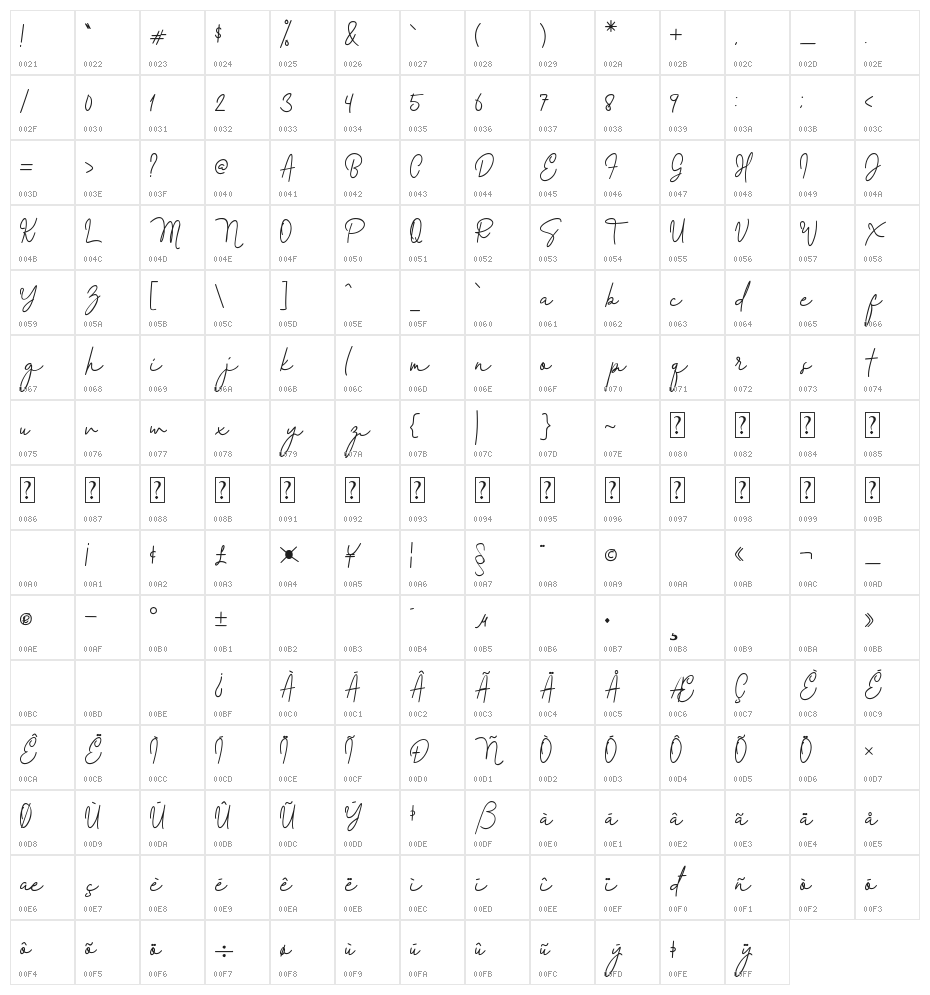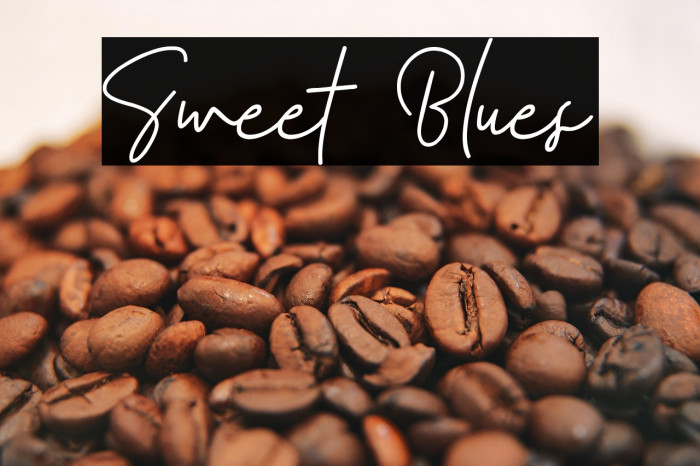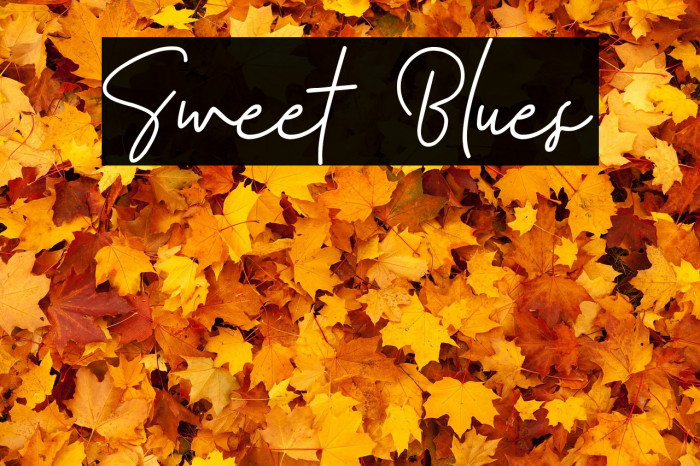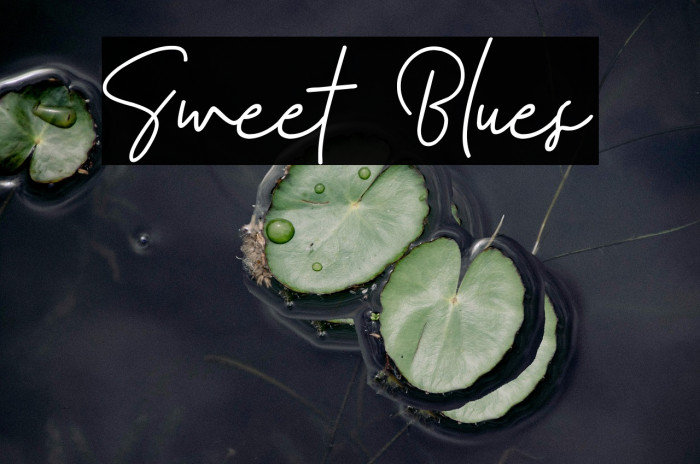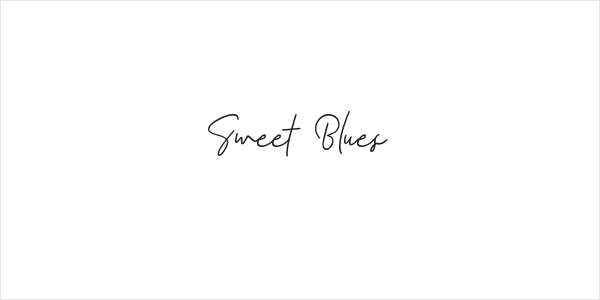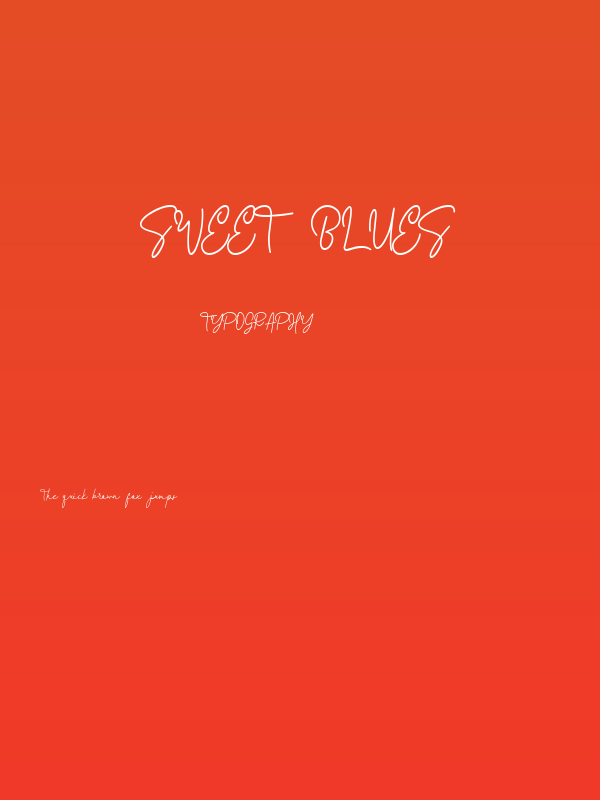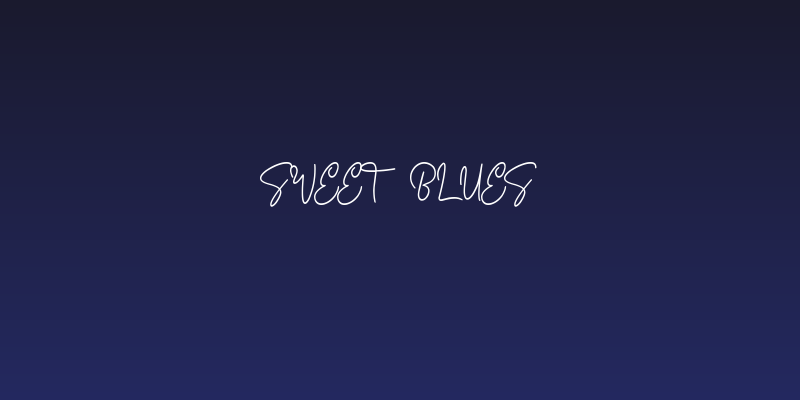
Sweet Blues Font
Sweet Blues Description
This font features a flowing, cursive style with elegant loops and smooth transitions between letters. The uppercase characters are tall and graceful, with a slight slant that adds a sense of movement. Lowercase letters maintain a consistent style, with elongated ascenders and descenders that enhance the font's fluidity. The numerals are designed to match the cursive theme, offering a cohesive look across all characters. Special characters are integrated seamlessly, maintaining the overall aesthetic. This font is perfect for projects that require a personal, handwritten touch.
| Overall Style | Elegant, Handwritten |
| Proposed Projects | Ideal for wedding invitations, greeting cards, personal branding, and elegant logos. |